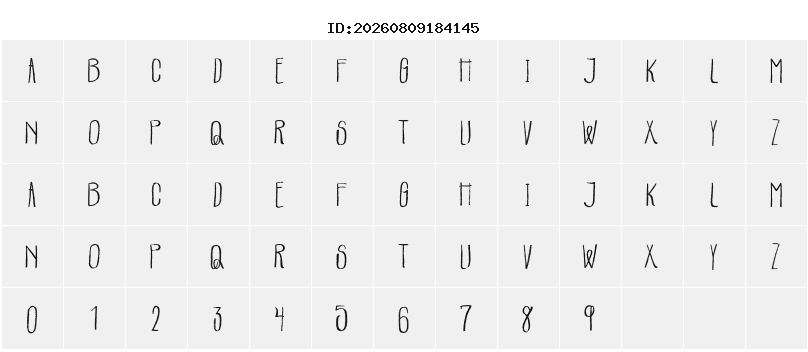
• Font Name: Parachutes
• Designer: =^_^=
• Manufacturer: Skyhaven
About Parachutes.otf
Parachutes.otf is a modern, elegant sans-serif font designed for ultimate readability and visual harmony. Perfect for branding, headlines, web design, and print materials.